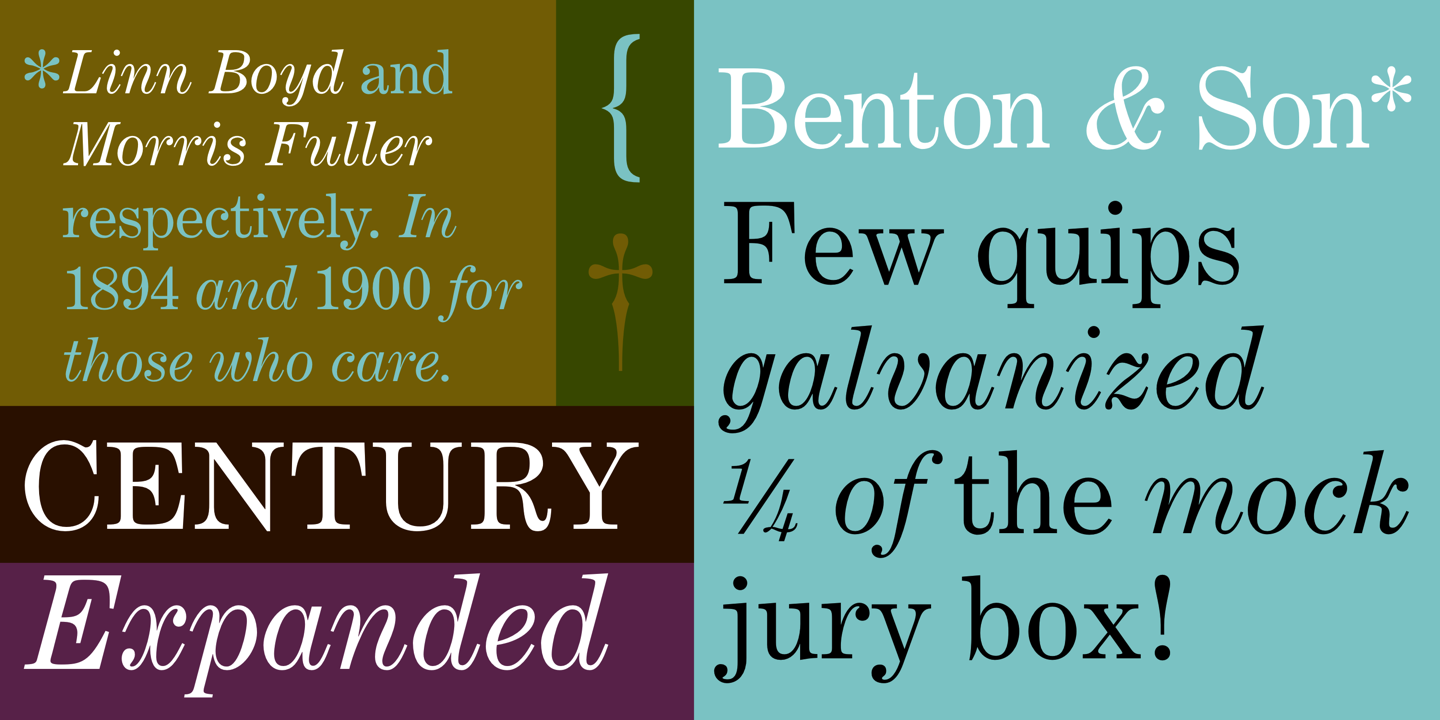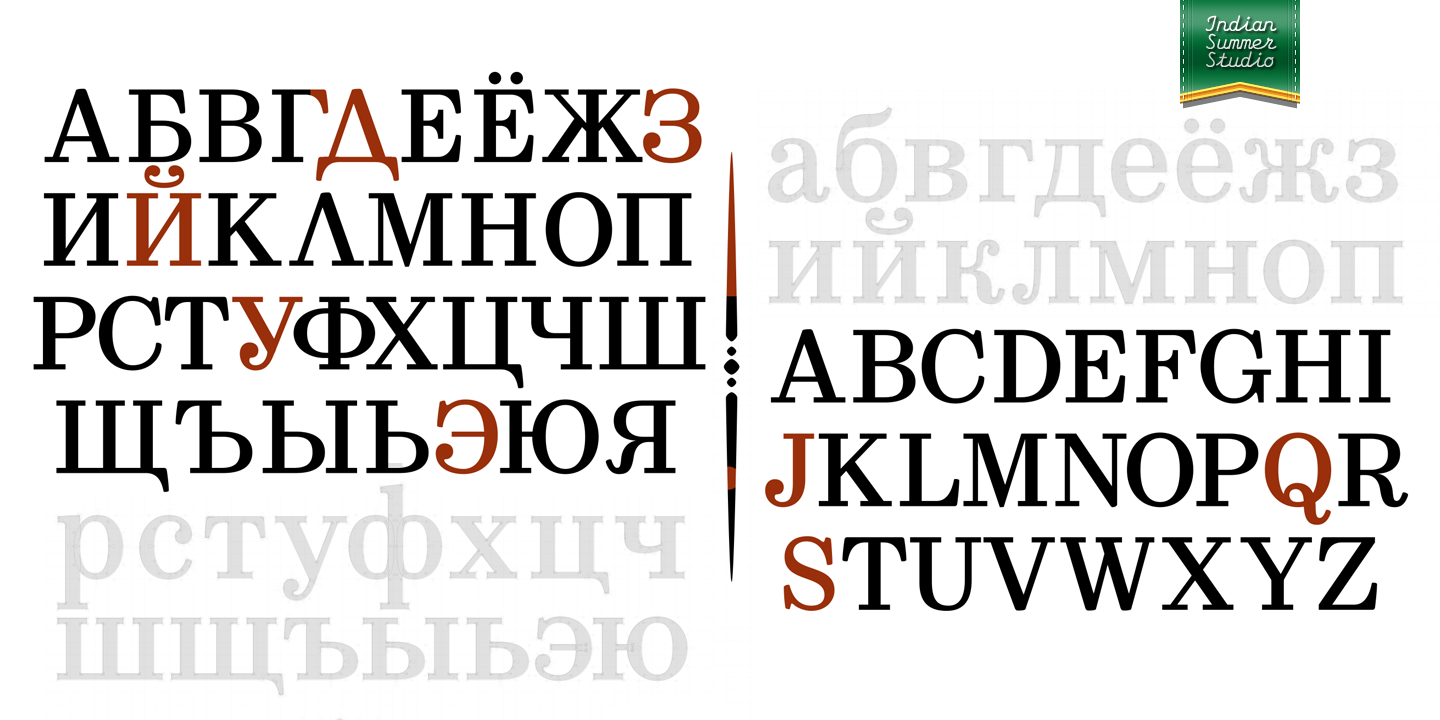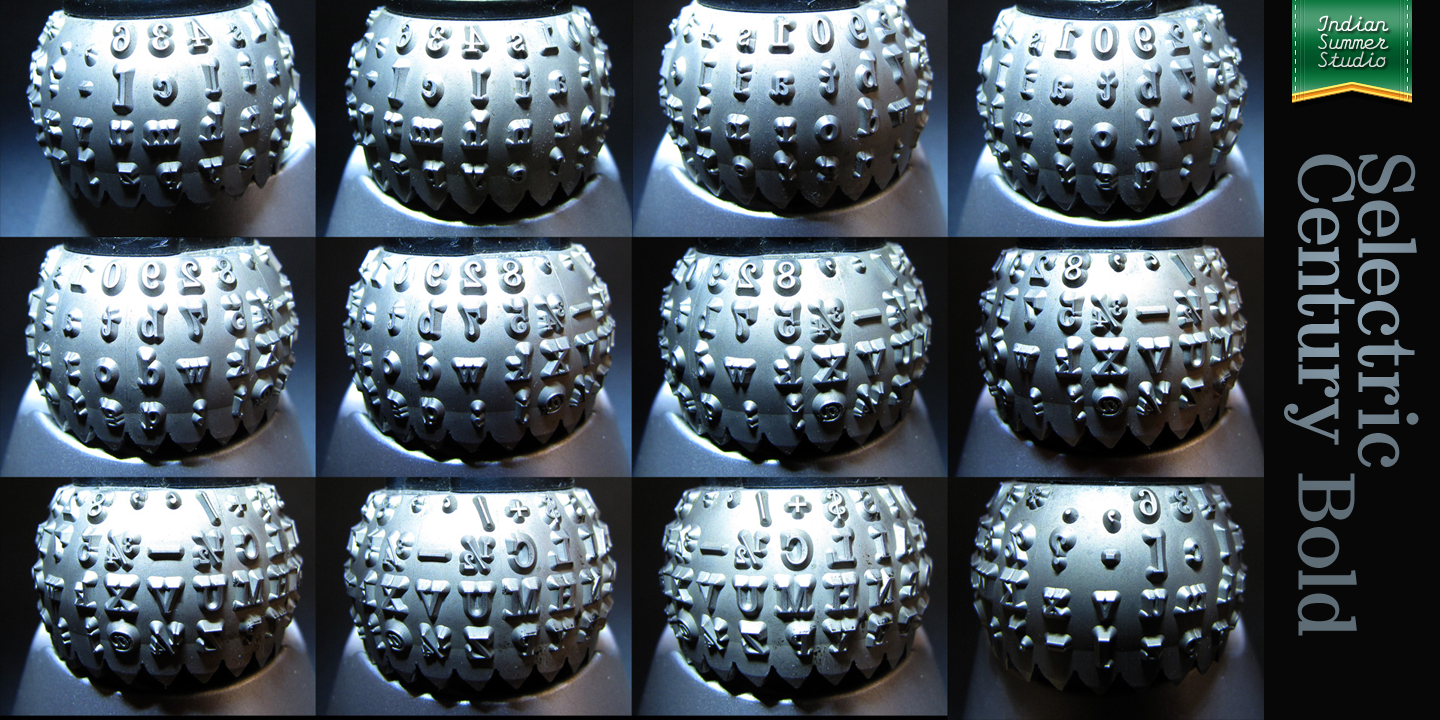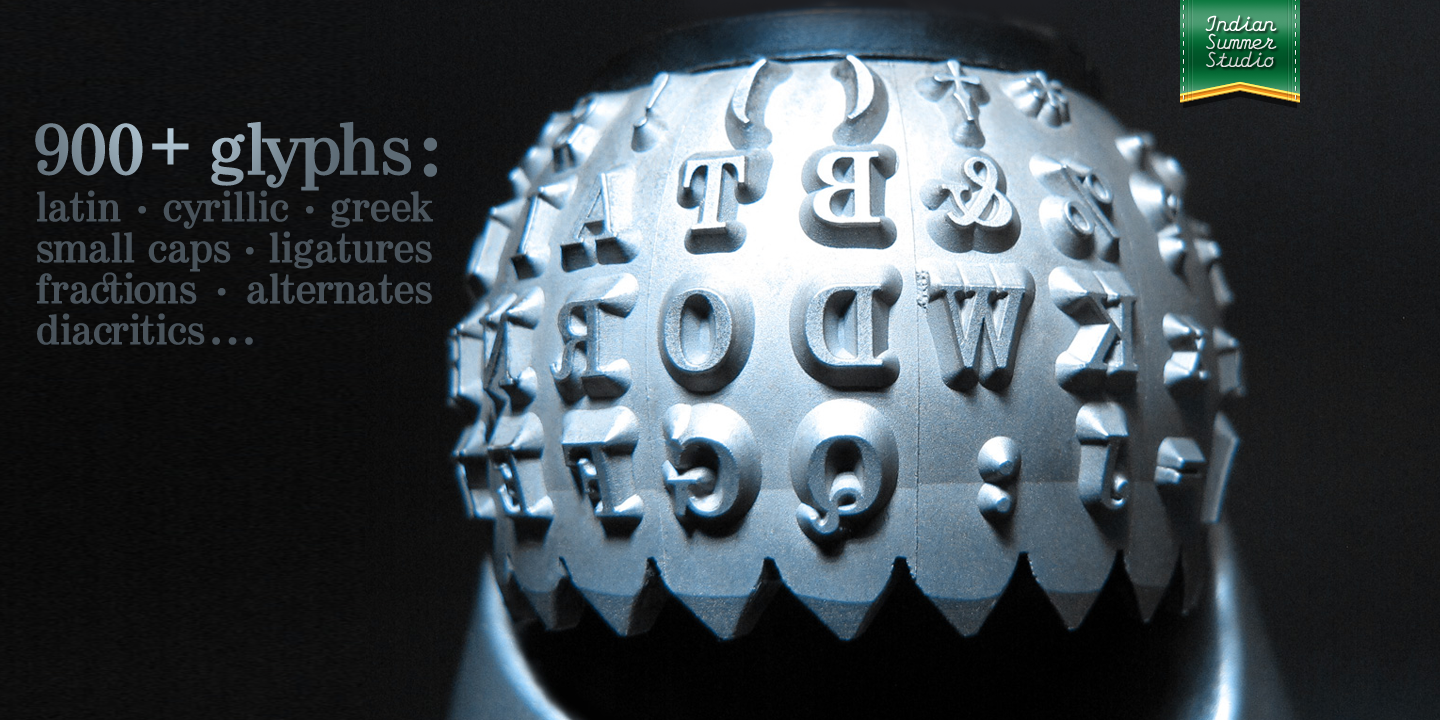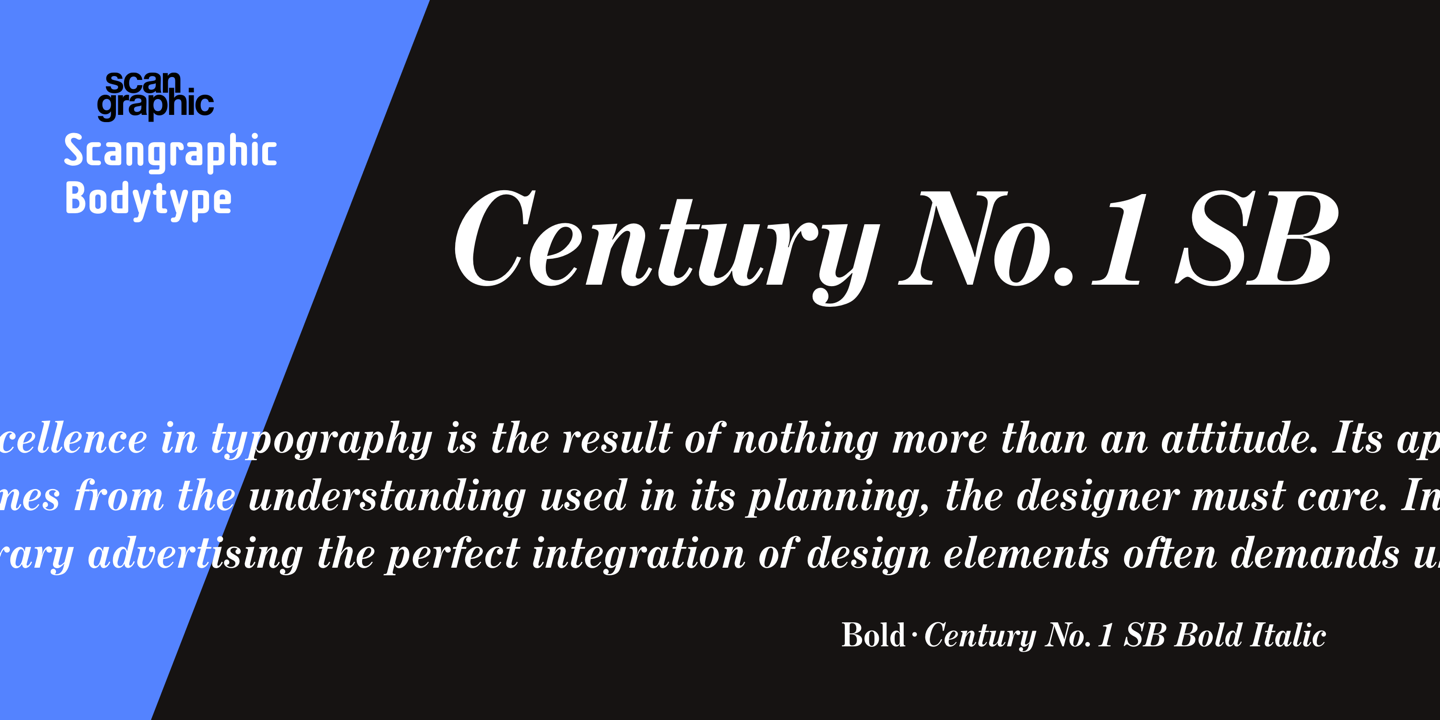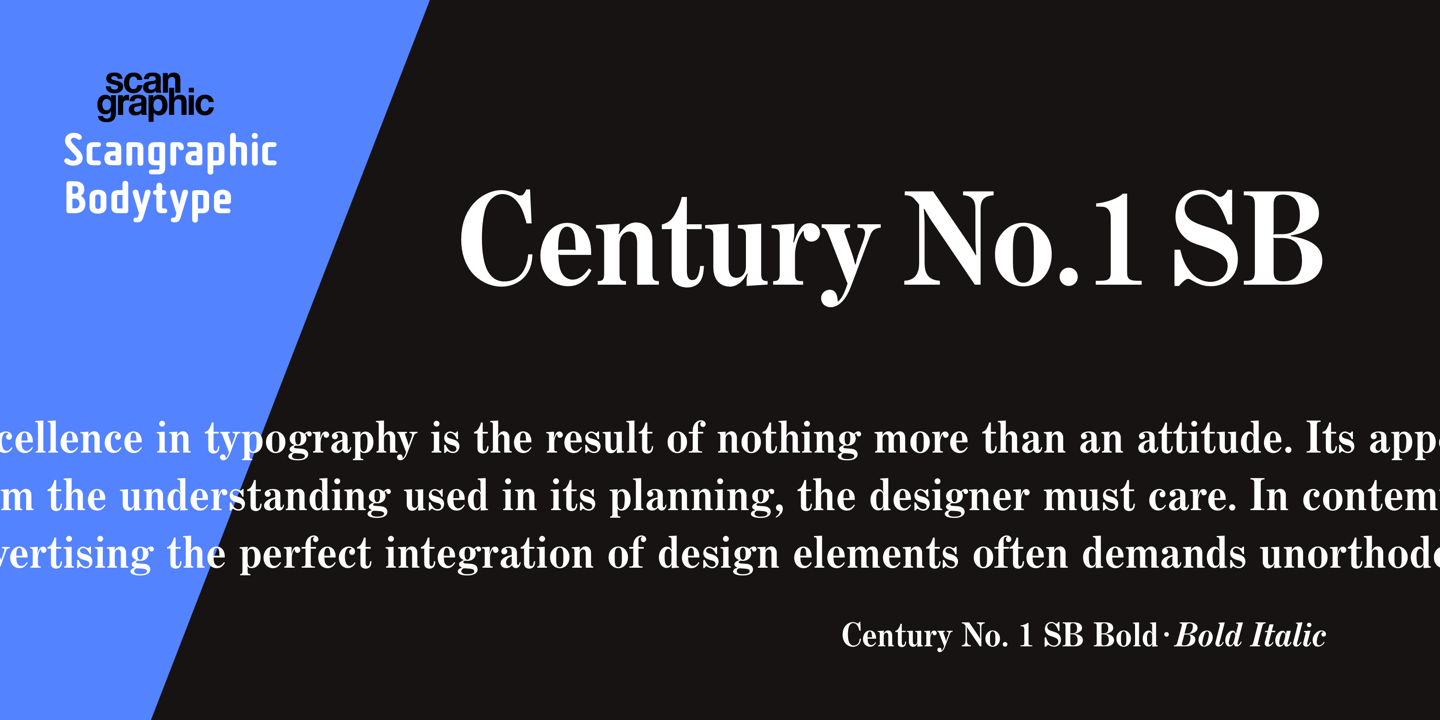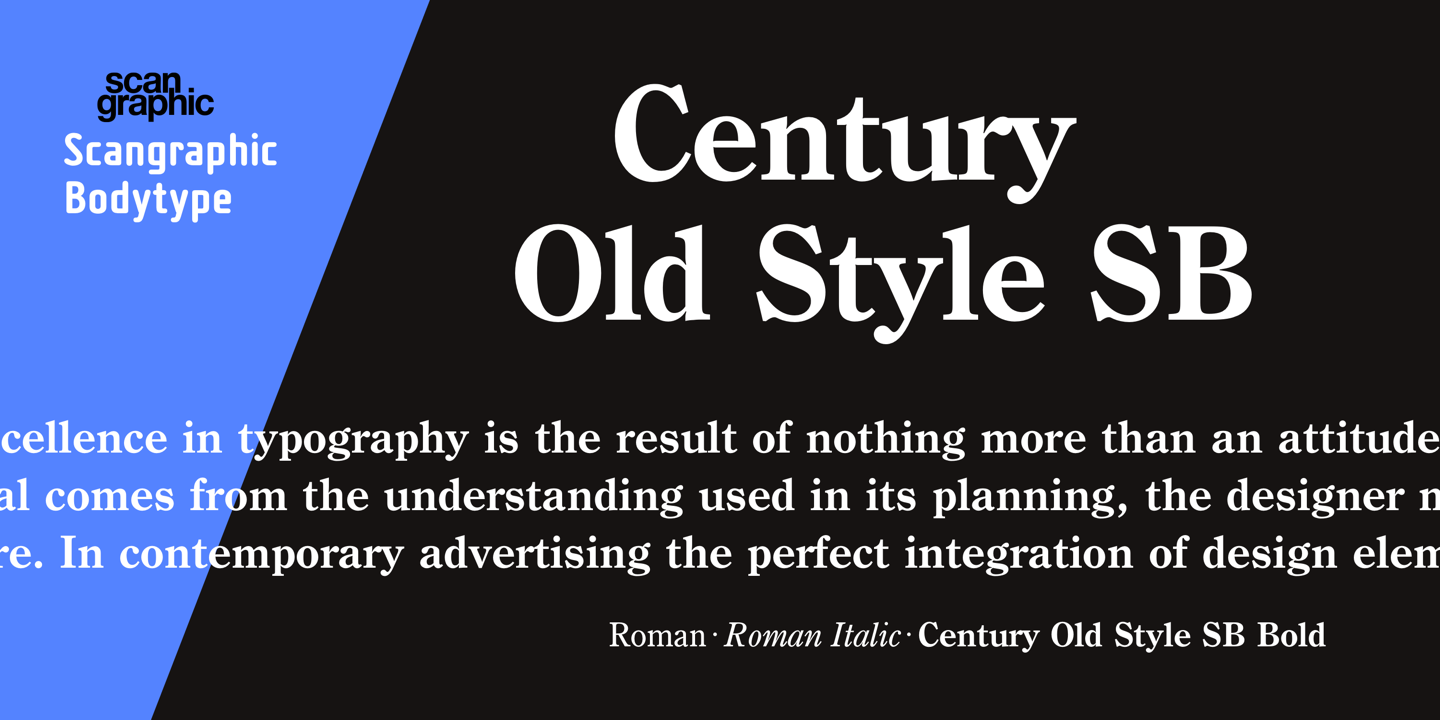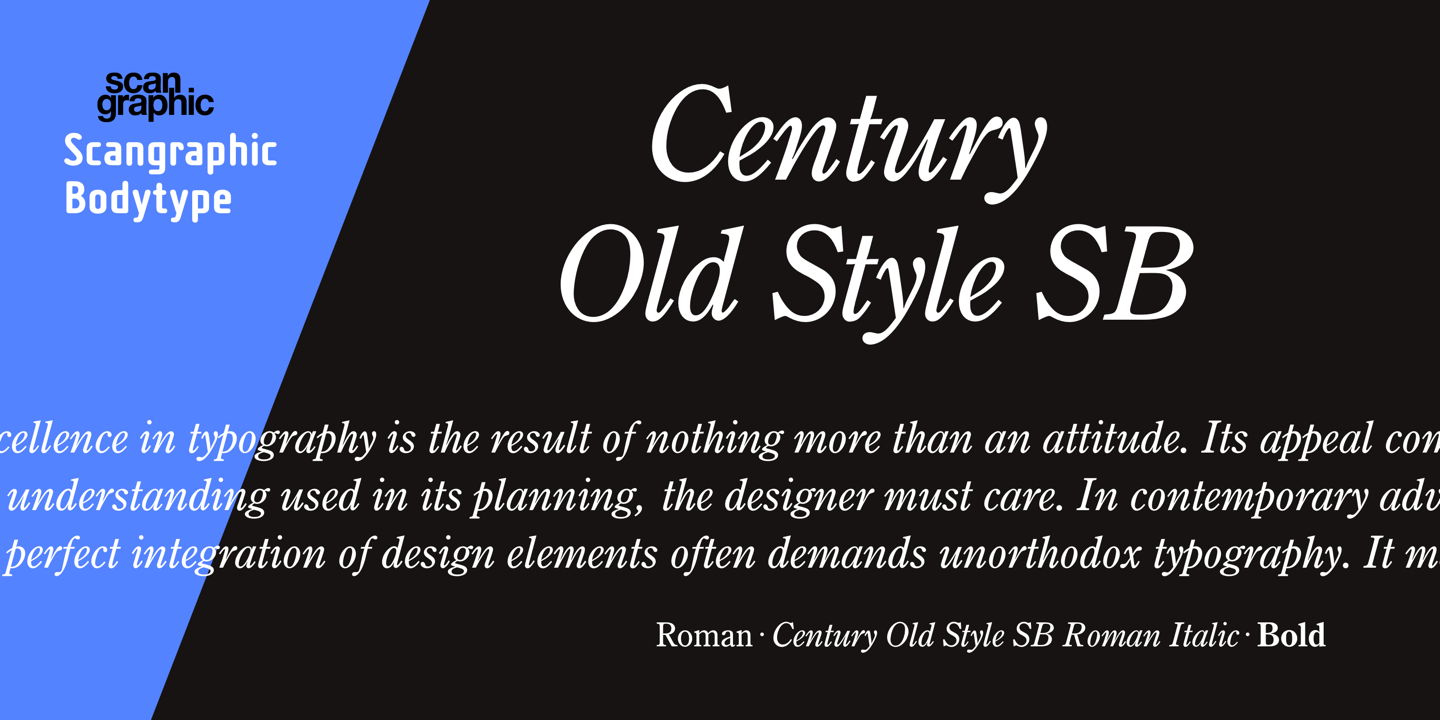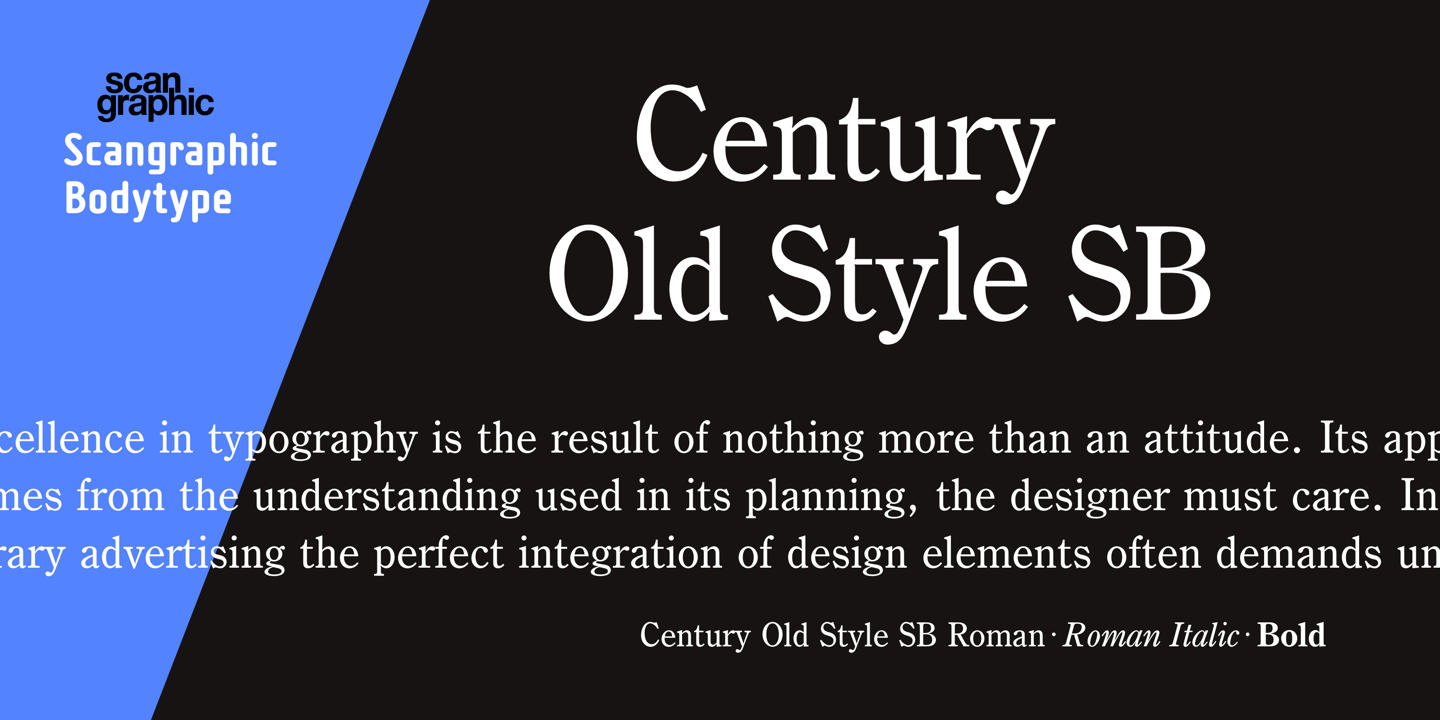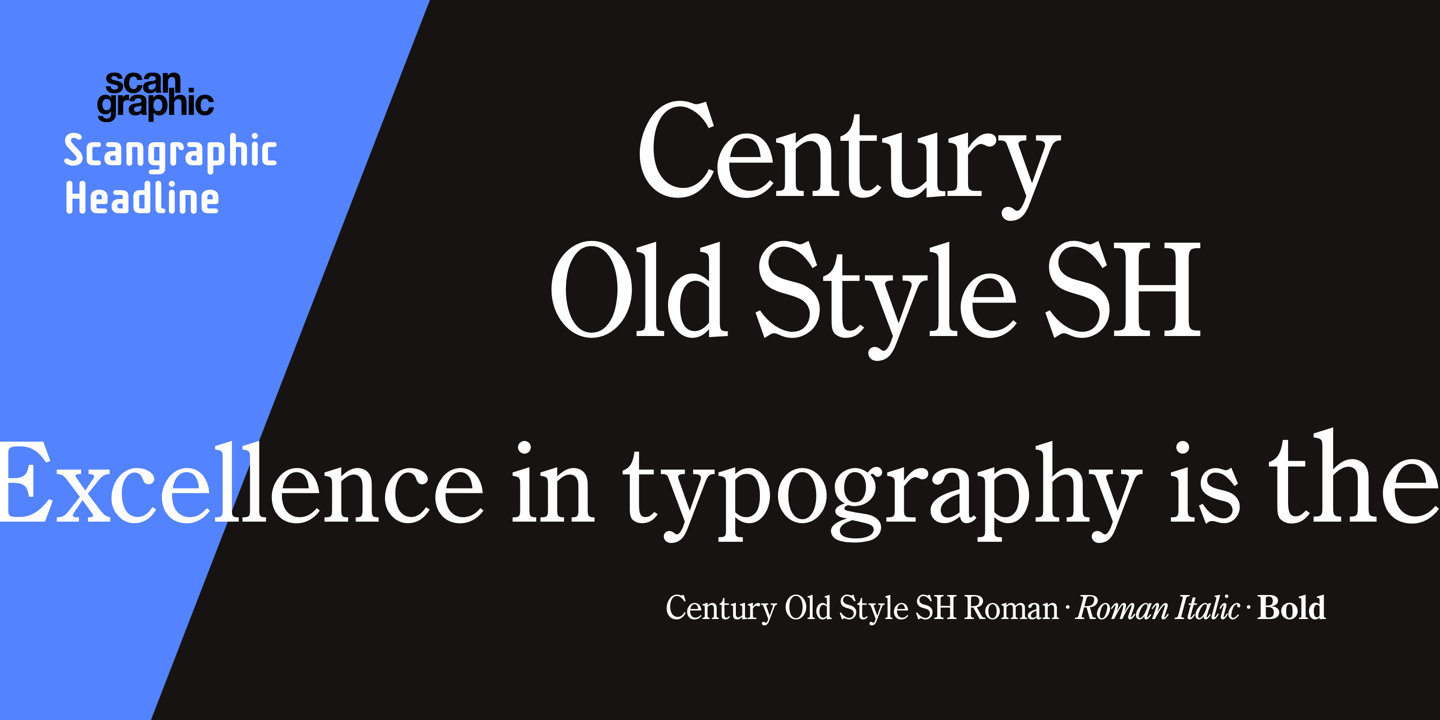
Linn Boyd Benton of United States of America
Born: Little Falls, New Jersey, 1844
Died: Plainfield, New Jersey, 1932
Late nineteenth century inventor of the pantographic punchcutting machine, patented in 1885, which altered the way in which letters were designed. With this device, for the first time, a single set of drawings could be traced to cut matrices at a wide range of sizes, without the skills of the punchcutter. Pure type design, as a profession of pen and paper, had begun; and with it scalable type, with its economically tempting compromise of using a single master design for all sizes, had arrived. The compromise has persisted through the phototype era to the present day, with a mere handful of digital typefaces available at more than one design size, despite Donald Knuth and the clever people at Adobe, Apple, Altsys and URW offering high-tech ways to overcome it.
Returning to the man who first offered the temptation, Linn Boyd Benton was also a type designer, and father of the prolific Morris Fuller Benton. He managed manufacturing at ATF from 1892 until 1932, the year of his death.